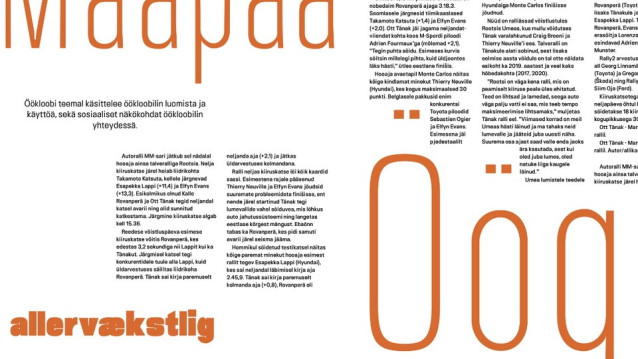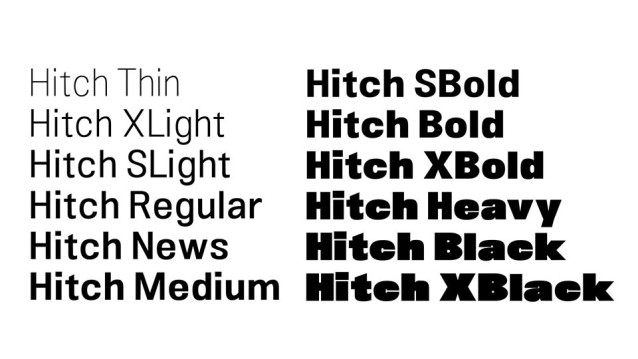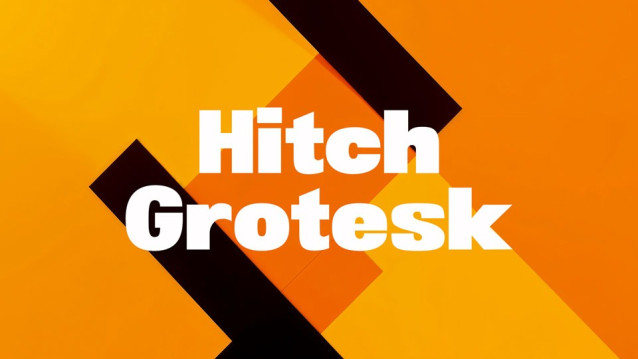
Hitch Grotesk Font
Hitch Grotesk Font is a versatile neo-grotesque typeface that masterfully balances clarity, modernity, and strength. With a comprehensive weight range from Thin to XBlack, this font adapts seamlessly to various design needs, offering both refined light styles and powerful, impactful heavy weights.
Its clean, geometric letterforms ensure excellent readability, while subtle humanist touches add warmth and character. Ideal for editorial design, branding, UI/UX, and corporate identities, Hitch Grotesk excels in both digital and print applications.
Whether you’re crafting minimalist layouts or bold typographic compositions, Hitch Grotesk provides a dynamic and contemporary typographic voice.